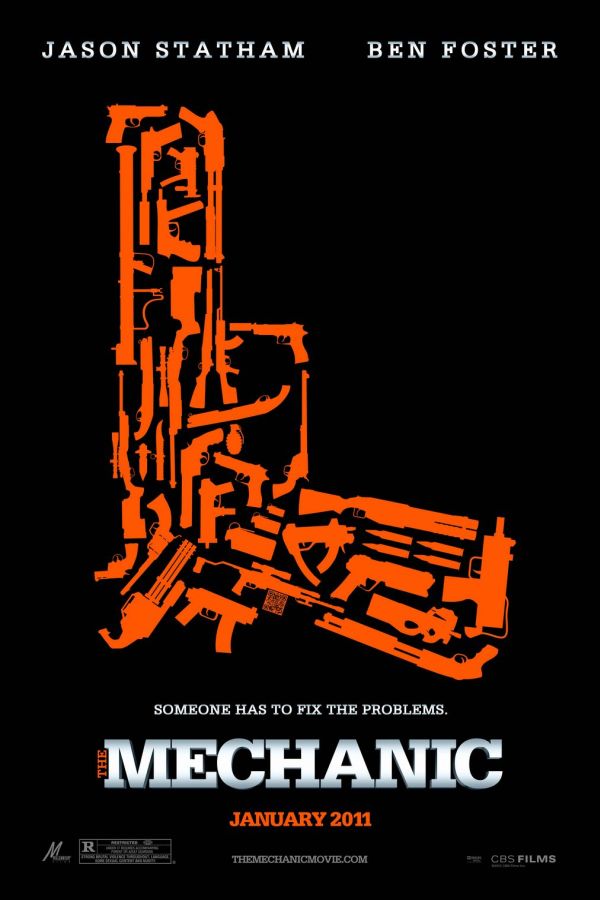
The Mechanic Font
ActionThe Mechanic is a 2011 action film directed by Simon West and starring Jason Statham as Arthur Bishop, a professional assassin. The film follows Bishop as he is tasked with carrying out a series of hits on high-profile targets. Along the way, he meets and trains a young apprentice, Steve McKenna (played by Ben Foster), who becomes his protégé and helps him carry out the hits.
The font used for the Mechanic title in the poster is Serifa 75 Black, a slab serif by Adrian Frutiger, based on the forms of Univers. You can view more details about Serifa typeface here.